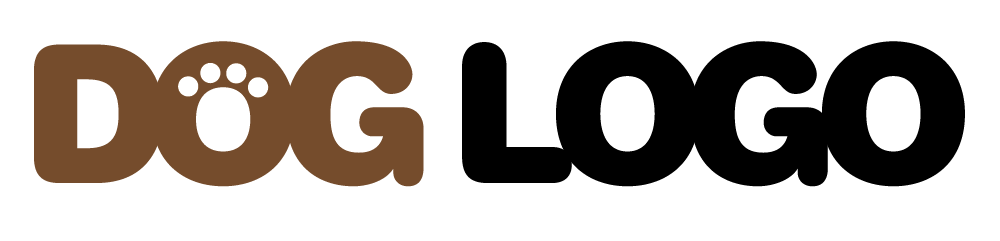
I have a popular dog on youtube and photos and videos that I have uploaded in past are constantly stolen and re-uploaded to other locations. I want to make a logo that will display on photos of him, and across the bottom of his videos. I do not want the font to be too cartoony, though I'd like it can be a fun font. Some keywords that convey the feeling I'd like to get across: fun, strong, fast and adorable. He is a husky, and sort of looks a bit like a wolf. Can anyone make any suggestions for a font or style of a font to consider?
Helvetica Rounded Extra Bold
Thank you for your reply. What is it about Helvetica Rounded Extra Bold that makes you think it will be a good fit based on my description?
Like this... and sorry, it's Helvetica Rounded Black